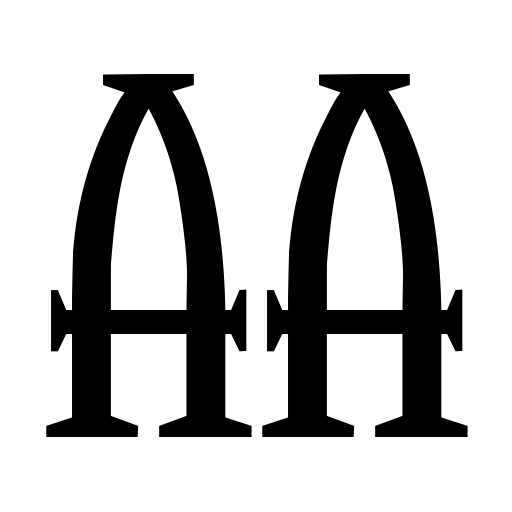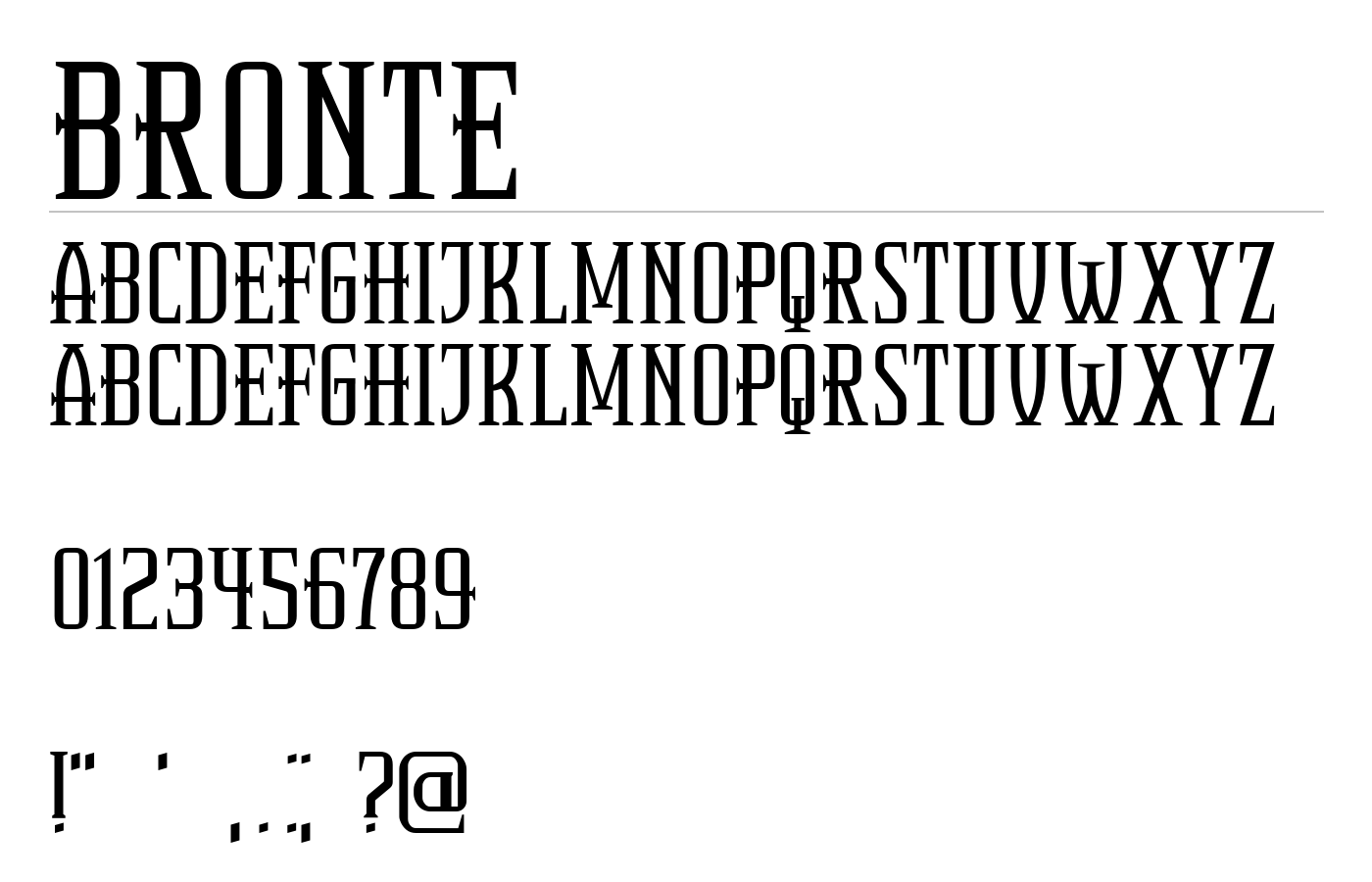
Bronte is a bold, condensed serif font with strong vertical emphasis and high contrast between thick and thin strokes, giving it a vintage yet authoritative feel. Its sharp, bracketed serifs and unique letterforms make it ideal for impactful headlines, logos, and branding that seek a classic yet commanding presence. This font works especially well in editorial design, posters, and packaging where a bold statement is needed.
Bronte Font
About Bronte Font